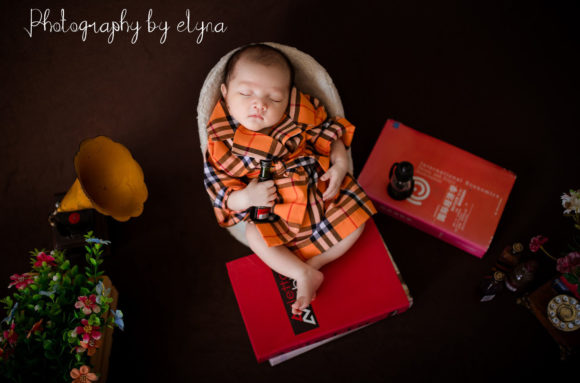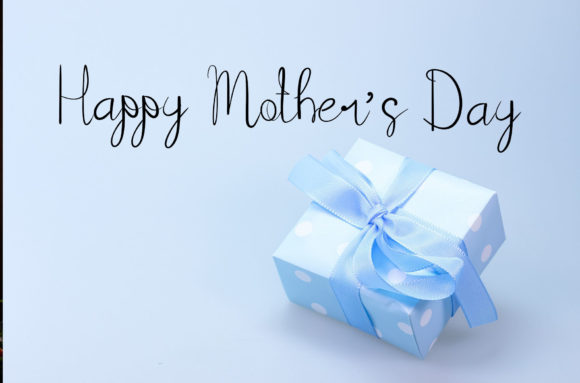
Christmas is a romantic and sweet calligraphy typeface with characters that dance along the baseline. It will add a luxury spark to any design project that you wish to create! This font is PUA encoded which means you can access all of the amazing glyphs and ligatures with ease!